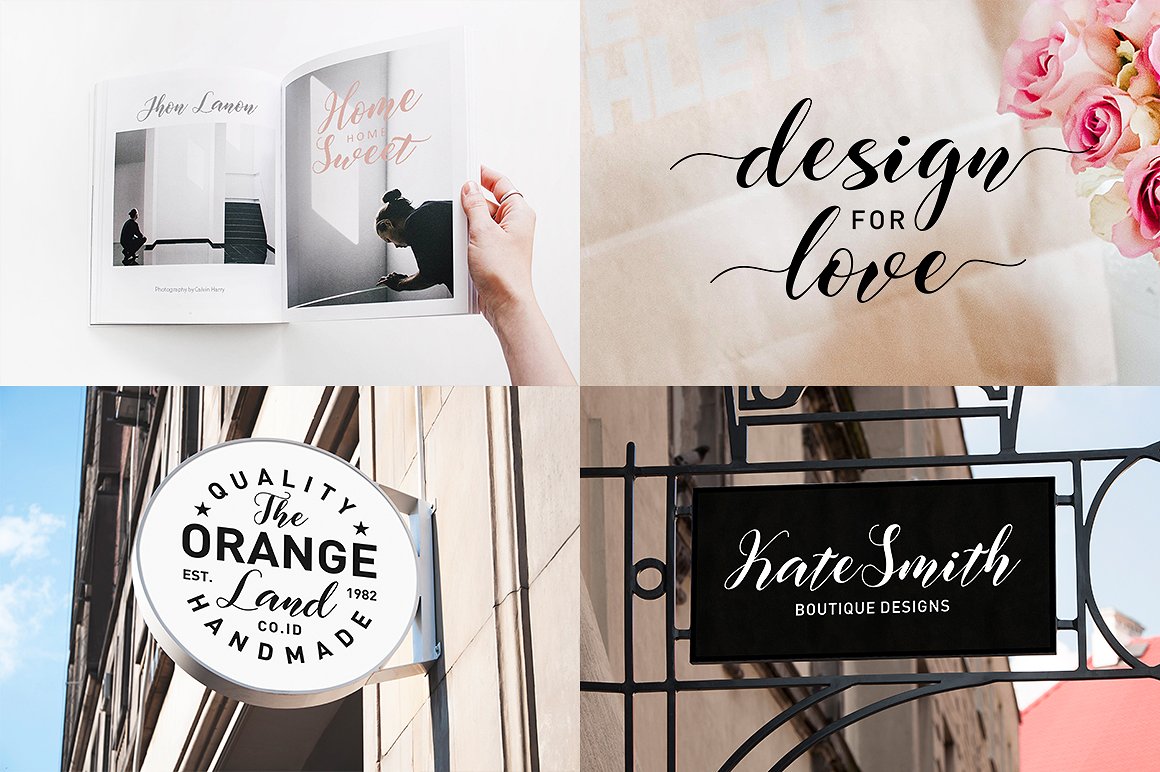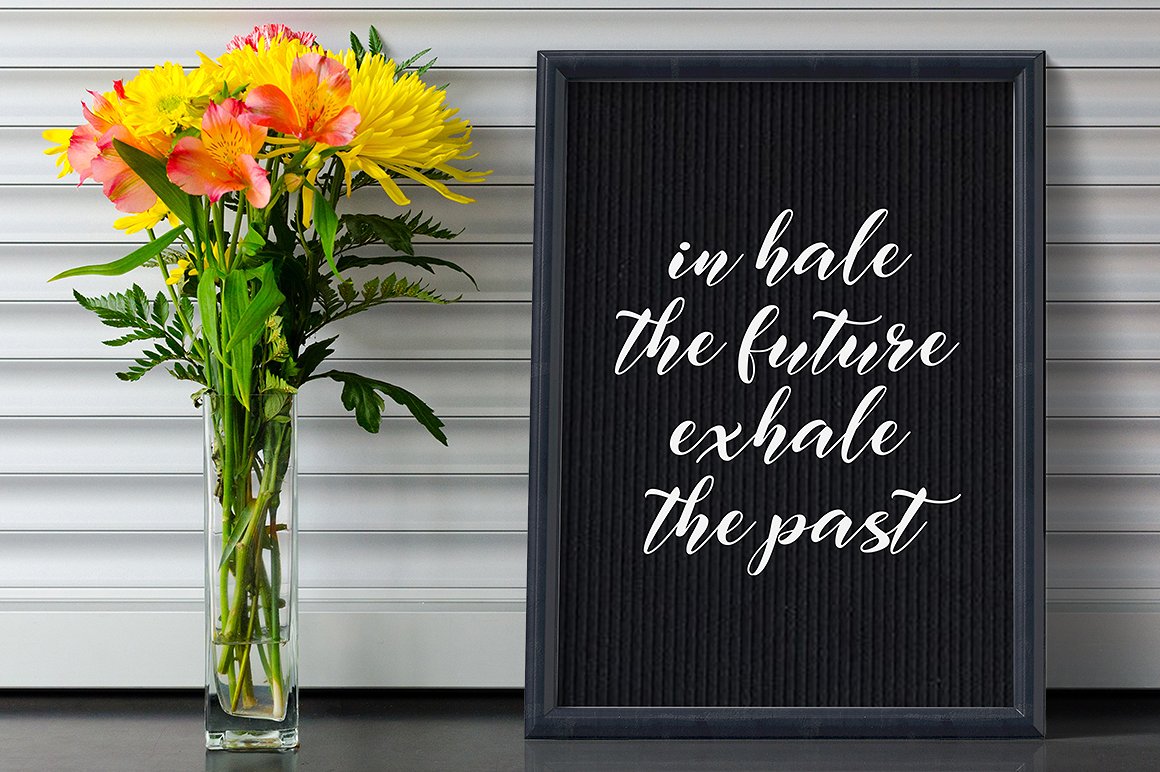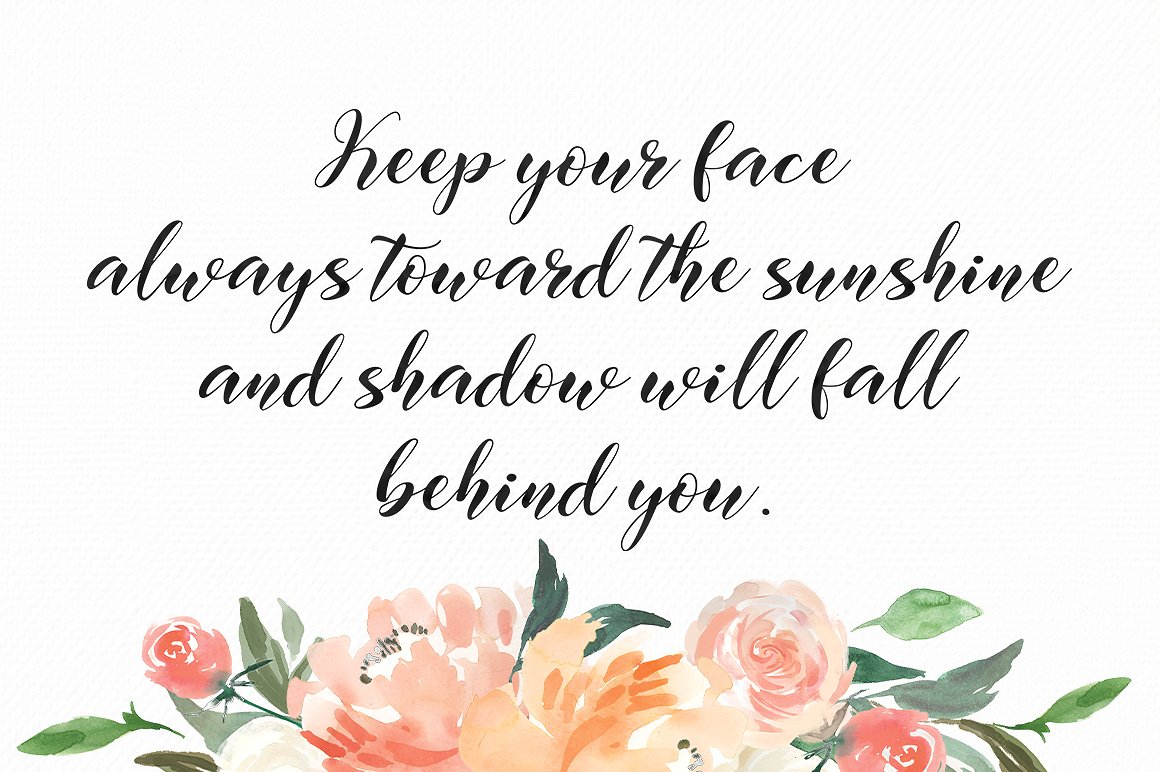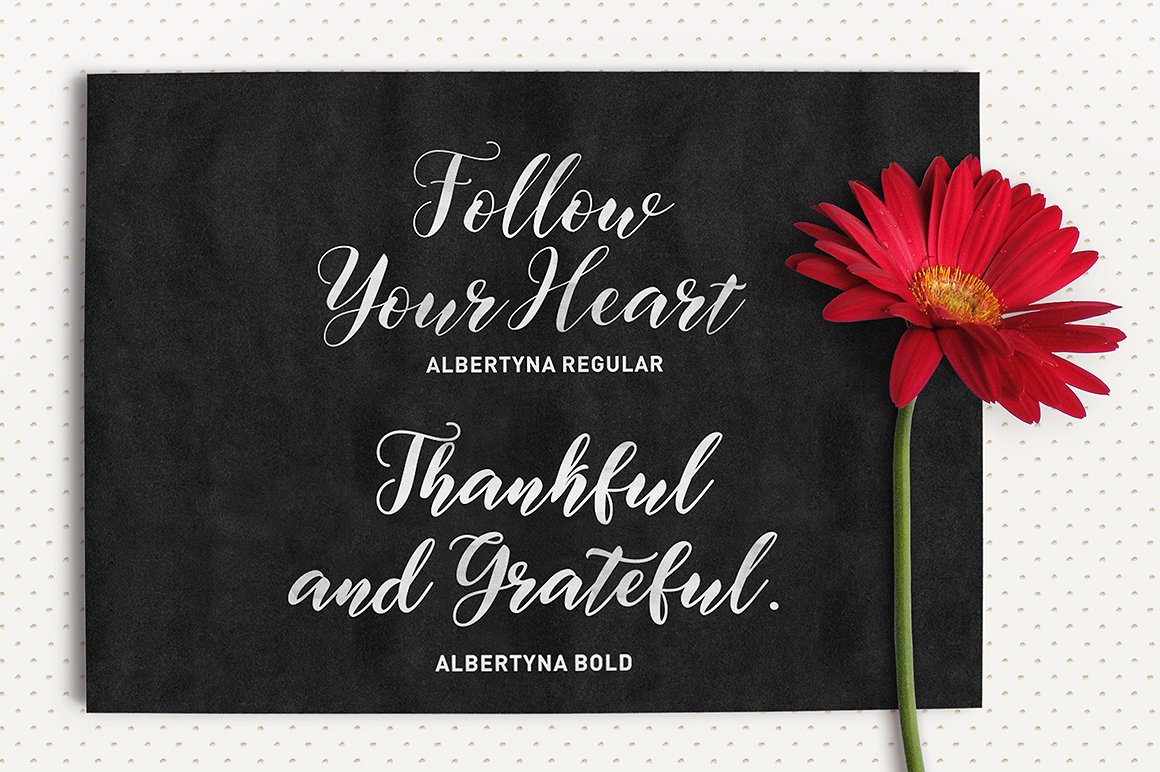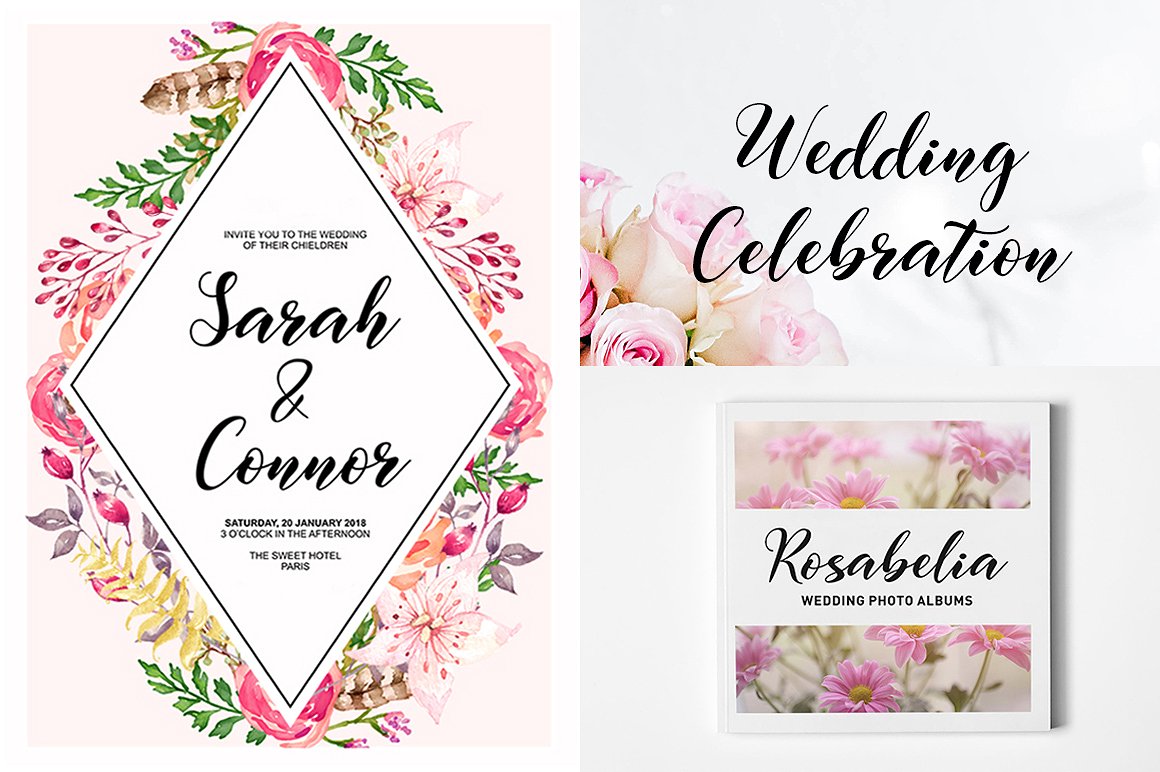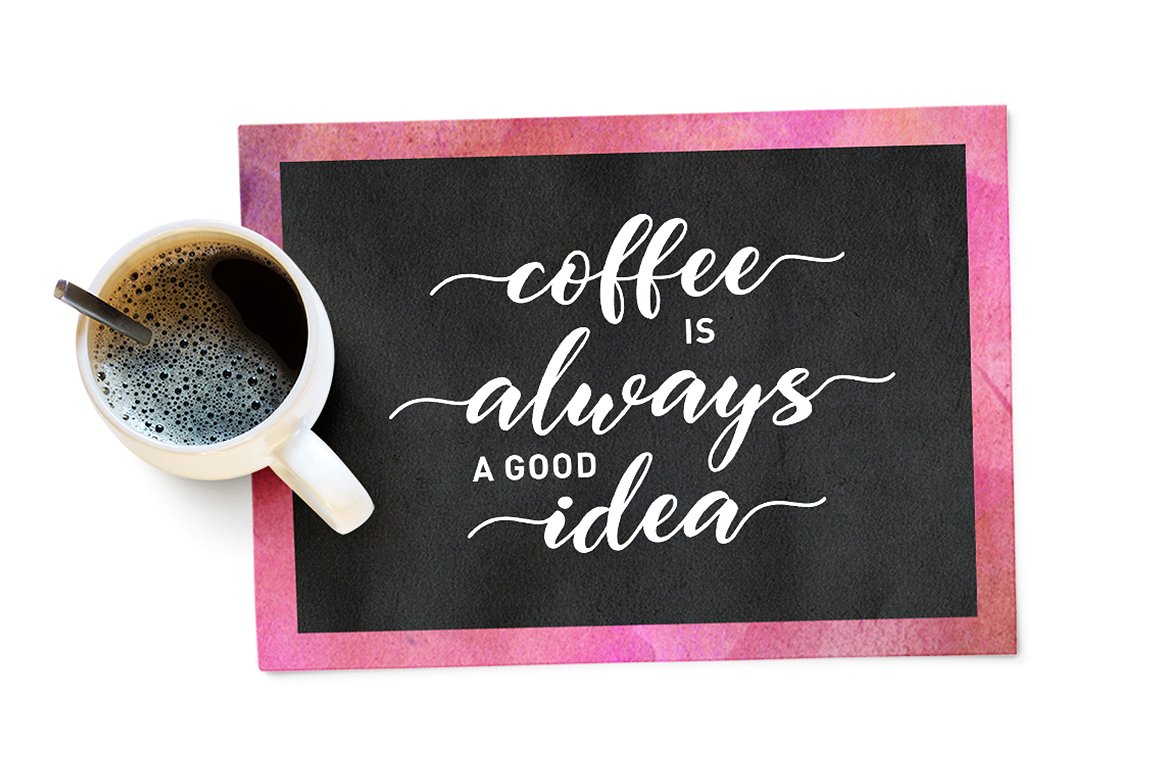
Introducing Albertyna Font: Elevate Your Creative Projects with Elegance and Playfulness
Are you a designer, crafter, or creative enthusiast looking for a font that embodies both modernity and elegance? Look no further than Albertyna Font. This lovely and modern script is crafted in a tasteful and flowy calligraphy style, making it perfect for a wide range of creative projects. In this article, we’ll dive into the features, benefits, and uses of Albertyna Font, and explore how it can elevate your designs to the next level.
What is Albertyna Font?
Albertyna is a beautiful and elegant script font that exudes a sense of playfulness and sophistication. Its flowy calligraphy style makes it perfect for designs that require a touch of elegance and refinement. The font is designed to be highly versatile, making it suitable for a wide range of applications, from branding and advertising to packaging and digital media.
Key Features of Albertyna Font
So, what makes Albertyna Font so special? Here are some of its key features:
- Modern and elegant design: Albertyna Font boasts a modern and elegant design that is sure to impress. Its flowy calligraphy style gives it a unique and sophisticated look that sets it apart from other fonts.
- Playful with swashes: One of the standout features of Albertyna Font is its playful use of swashes. These decorative elements add a touch of whimsy and elegance to your designs, making them perfect for titles, headings, and other display text.
- Highly versatile: Albertyna Font is designed to be highly versatile, making it suitable for a wide range of applications. Whether you’re designing a logo, creating a brochure, or crafting a social media post, this font is sure to impress.
- Easy to read: Despite its elegant and cursive design, Albertyna Font is surprisingly easy to read. This makes it perfect for body text, as well as display text.
Benefits of Using Albertyna Font
So, why should you choose Albertyna Font for your creative projects? Here are some of the benefits of using this beautiful font:
- Adds elegance and sophistication: Albertyna Font adds a touch of elegance and sophistication to your designs, making them perfect for high-end brands and luxury products.
- Perfect for creative projects: Whether you’re a designer, crafter, or creative enthusiast, Albertyna Font is perfect for a wide range of creative projects, from DIY crafts to professional designs.
- Unique and distinctive: With its playful swashes and elegant design, Albertyna Font is sure to make your designs stand out from the crowd.
How to Use Albertyna Font
So, how can you use Albertyna Font in your creative projects? Here are some ideas to get you started:
- Branding and advertising: Use Albertyna Font to create stunning logos, advertisements, and marketing materials that exude elegance and sophistication.
- Packaging design: Add a touch of elegance to your packaging designs with Albertyna Font. Perfect for luxury products and high-end brands.
- Digital media: Use Albertyna Font to create stunning social media posts, blog headers, and other digital content that demands attention.
- Crafting and DIY projects: Add a personal touch to your crafting and DIY projects with Albertyna Font. Perfect for handmade cards, gift tags, and other paper crafts.
| Font Name | Albertyna Font |
| Author | Solidtype |
In conclusion, Albertyna Font is a beautiful and elegant script font that is perfect for designers, crafters, and creative enthusiasts. With its modern and elegant design, playful swashes, and highly versatile nature, this font is sure to elevate your creative projects to the next level. Whether you’re designing a logo, creating a brochure, or crafting a social media post, Albertyna Font is the perfect choice. So why wait? Download Albertyna Font today and experience the power of elegant and sophisticated typography.